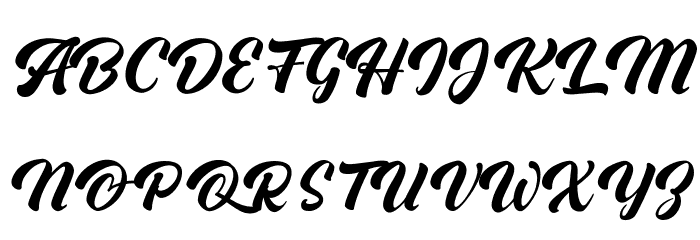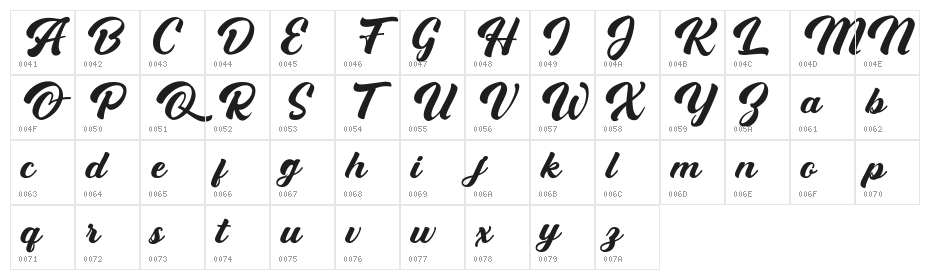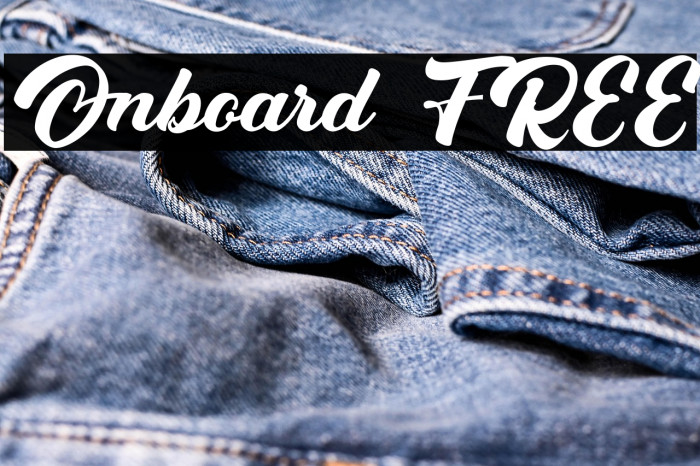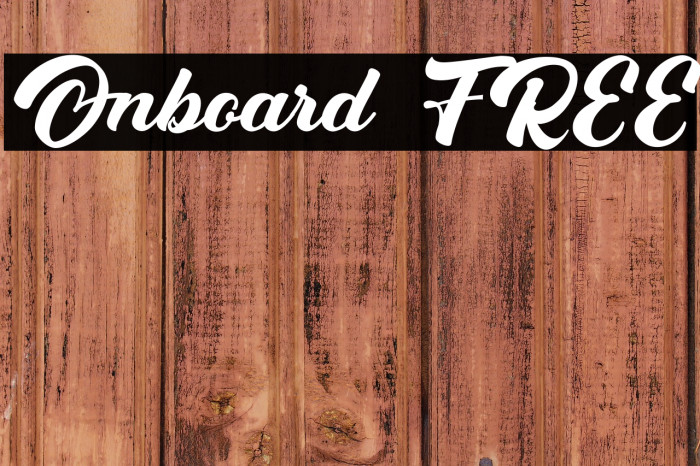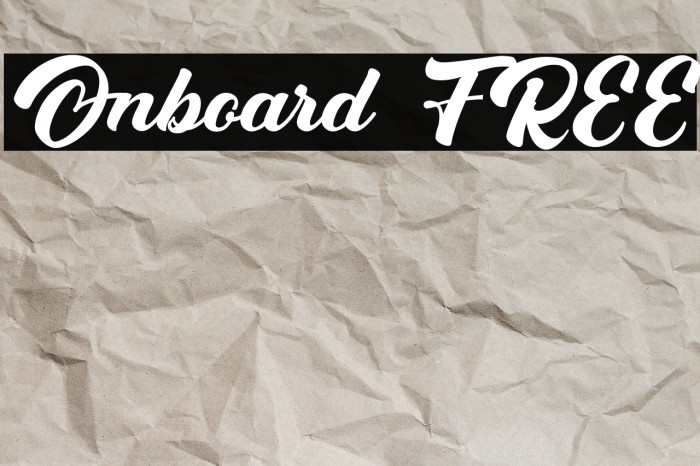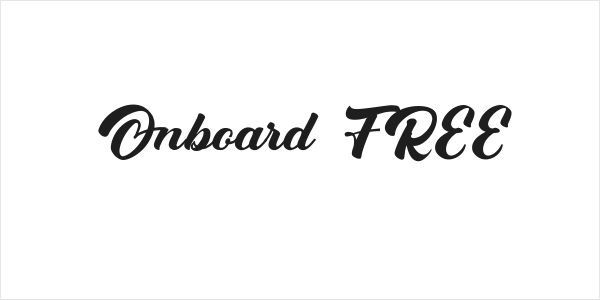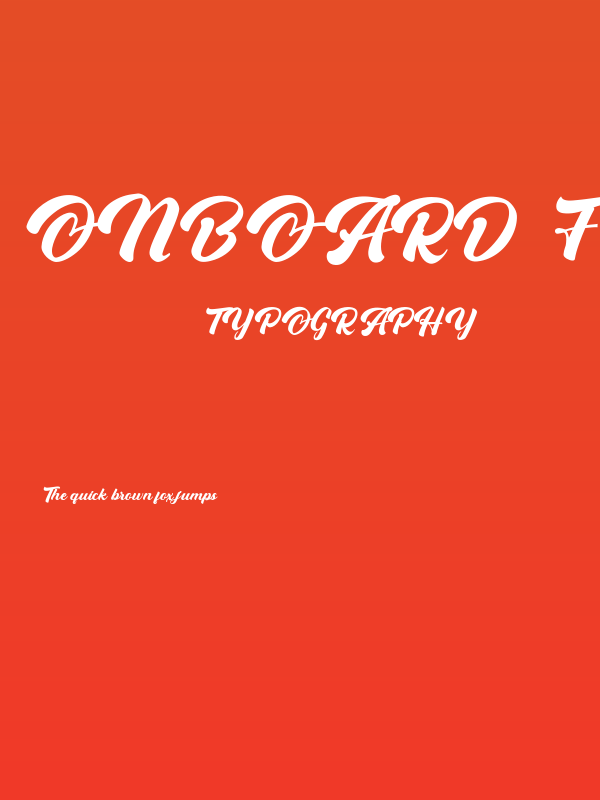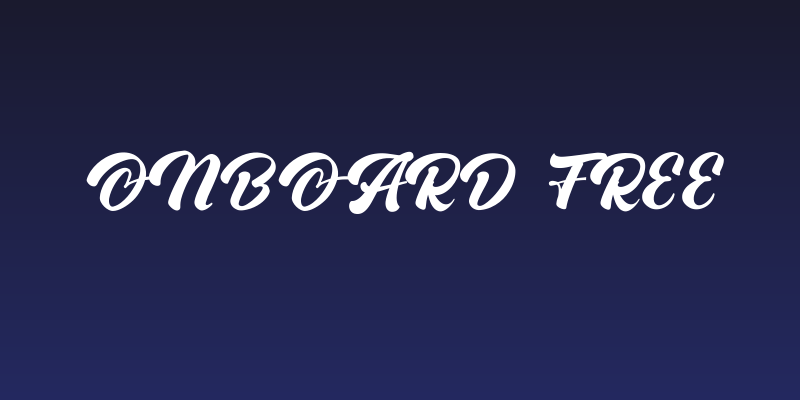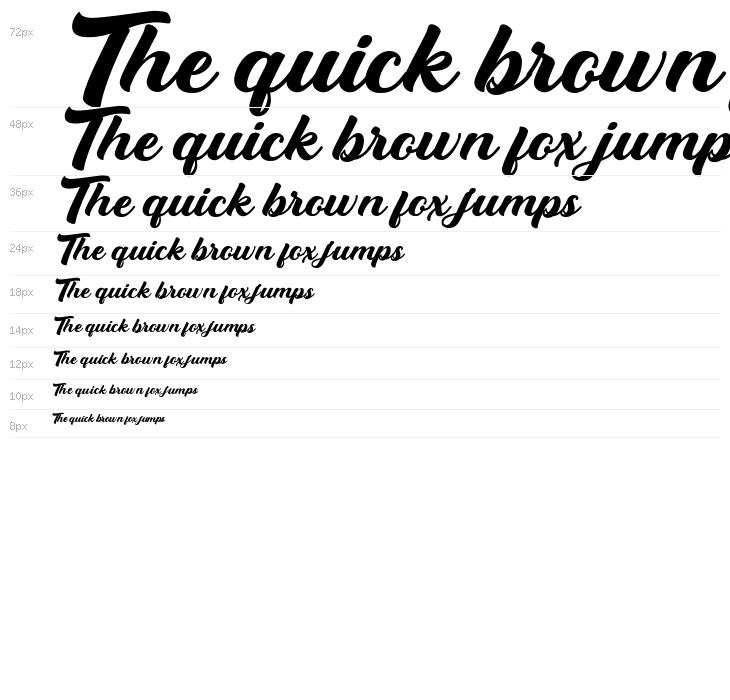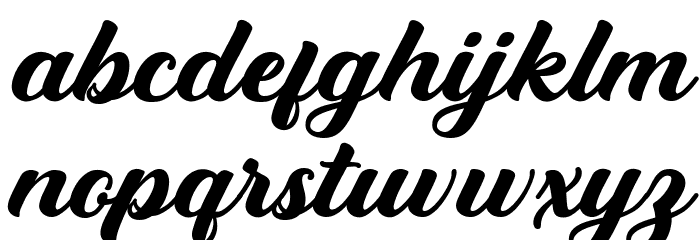
Onboard FREE Font
Onboard FREE Description
This font features a bold and flowing script style that exudes elegance and sophistication. The characters are interconnected, creating a seamless and fluid appearance. The uppercase letters are slightly more ornate, with flourishes that add a touch of drama, while the lowercase letters maintain a consistent rhythm and balance. The overall design is highly legible despite its decorative nature, making it suitable for a variety of applications. The font's bold weight and high contrast between thick and thin strokes enhance its visual impact, making it ideal for attention-grabbing headlines or branding materials.